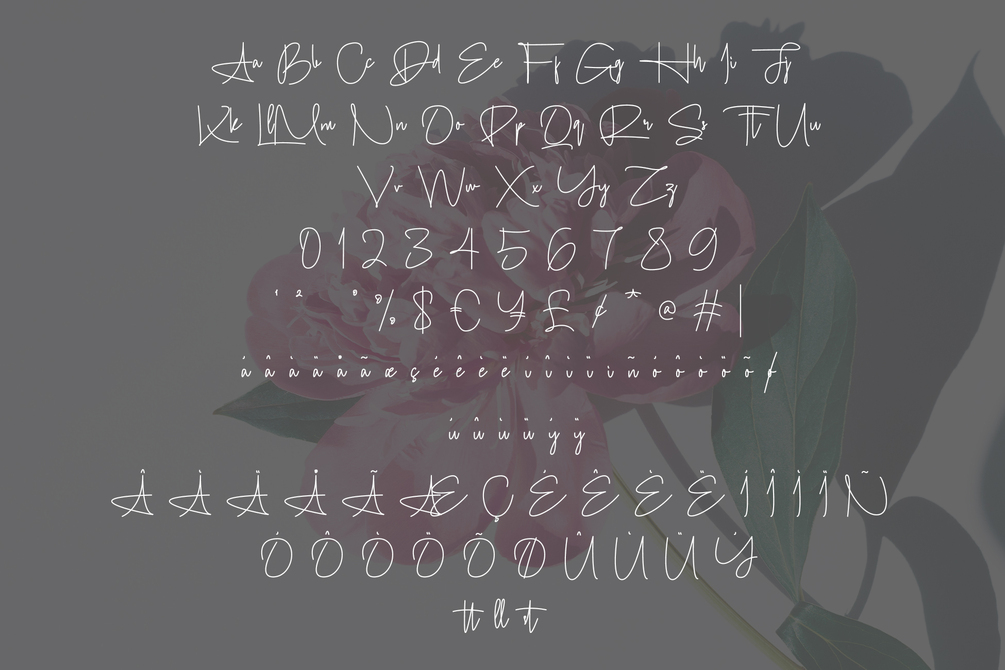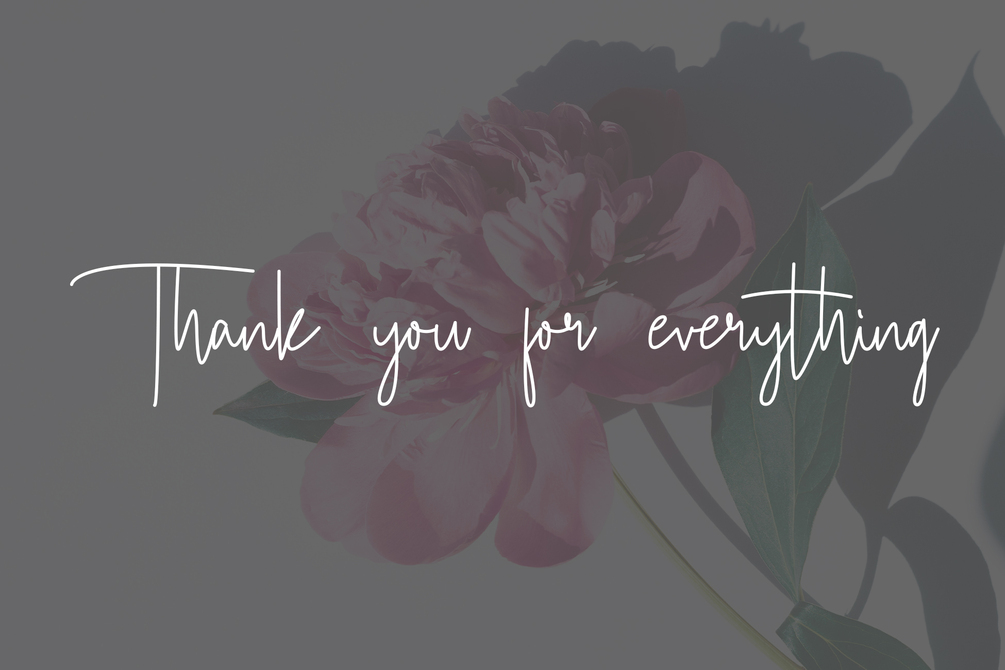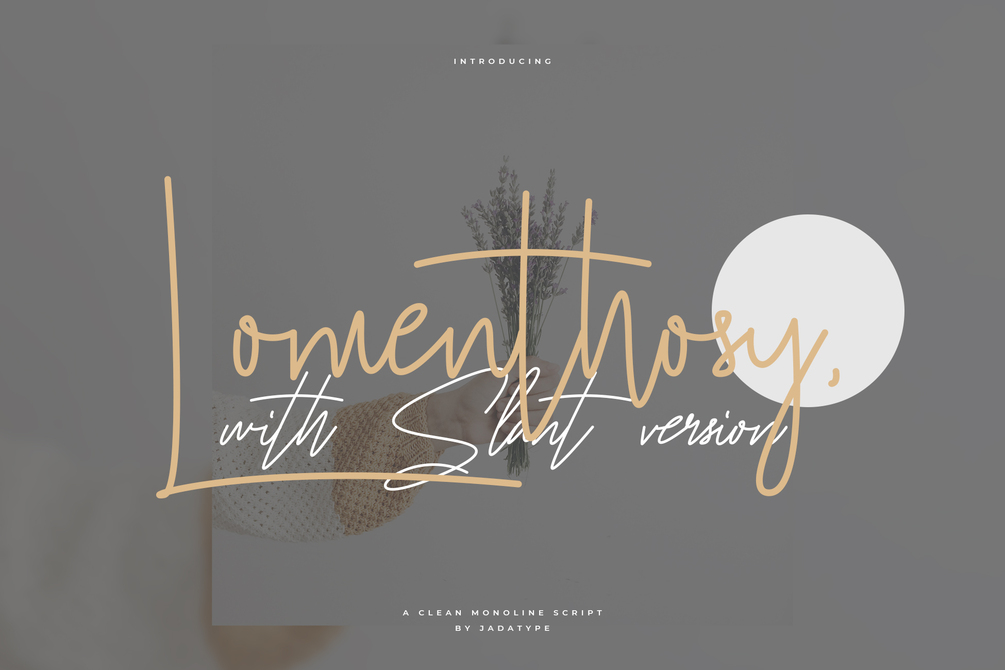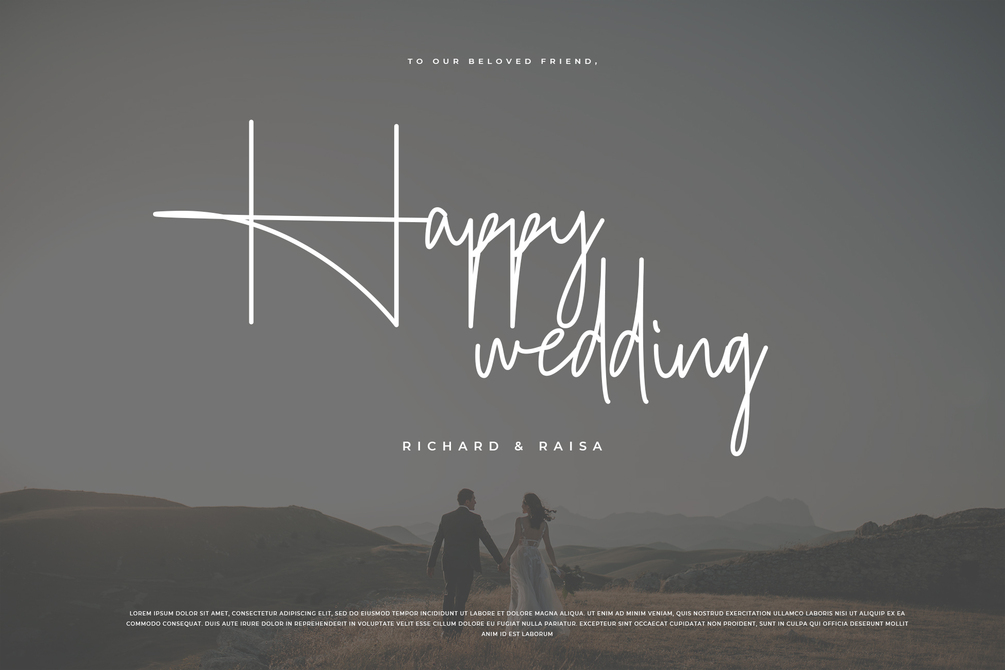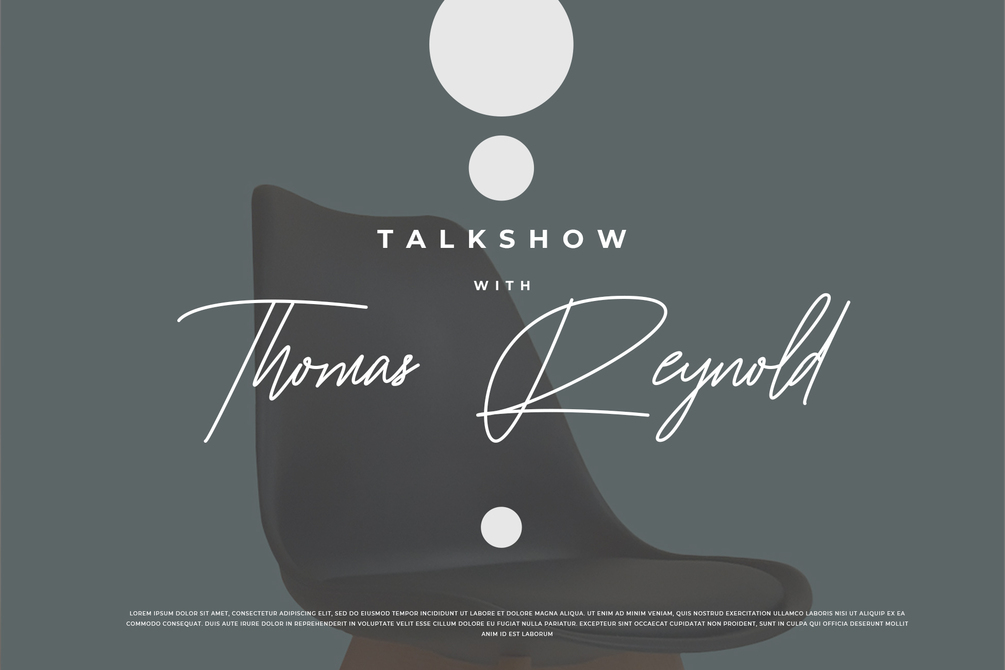
Lomenthosy Font
Lomenthosy is a monoline script with a simple and natural style. suitable for social media, logotype, craft, advertisements, and so on. contains standard English letters, numbers, punctuation, and several accents that support multilingualism.
• Regular & Slant